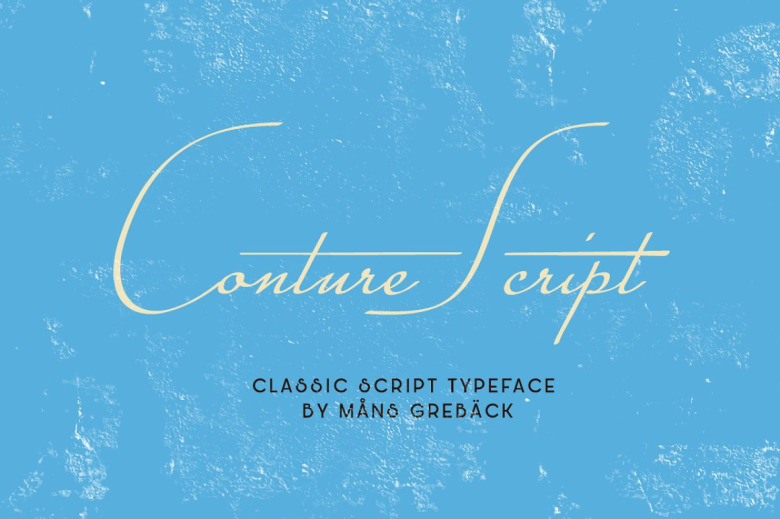
Conture Script Font
Conture Script is a classic script typeface with a thin contour. This high-quality font is drawn and created by Måns Grebäck during 2017.